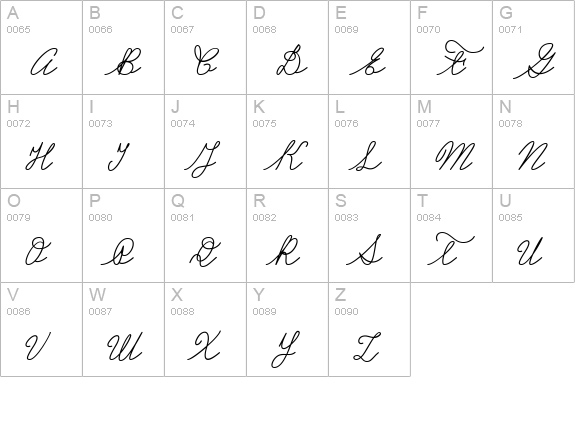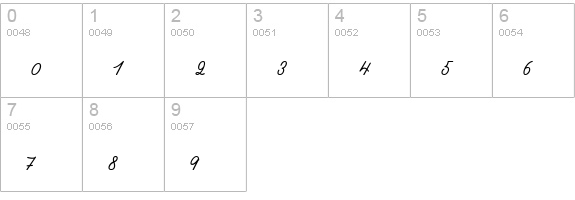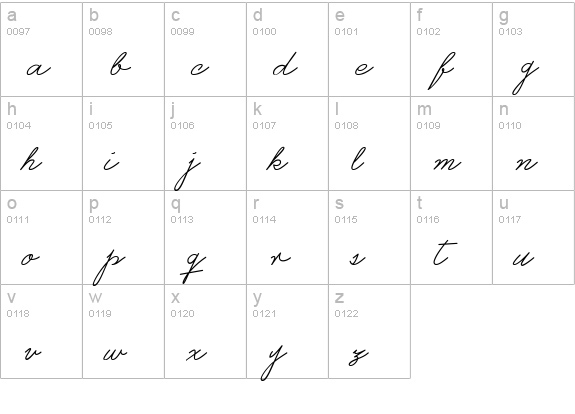
Castro Script PERSONAL USE ONLY Font Details
Castro Script PERSONAL USE ONLY font is a stunning and elegant typeface that will add a touch of sophistication to any project. With its flowing and graceful letterforms, this font is perfect for adding a touch of class to invitations, logos, branding materials, and more. What makes Castro Script even more appealing is that it is free for personal use. This means that you can use this font for your personal projects without any restrictions. Whether you are designing wedding invitations or creating a logo for your personal blog, Castro Script is the perfect choice. To download Castro Script PERSONAL USE ONLY font, simply visit FontsMarket.com. This website offers a wide range of high-quality fonts, and Castro Script is one of them. With just a few clicks, you can have this beautiful font ready to use in your projects. So why wait? Take advantage of this free font and enhance your designs with the elegance and charm of Castro Script PERSONAL USE ONLY font. Download it today from FontsMarket.com and let your creativity soar.